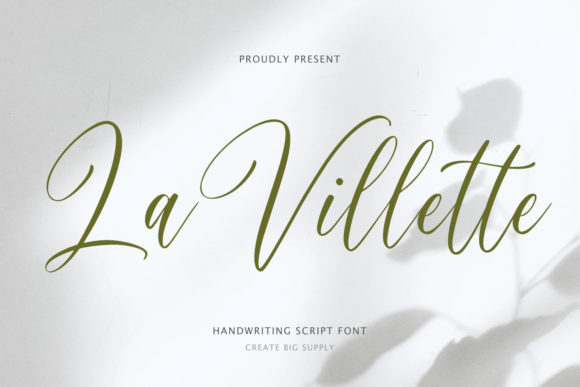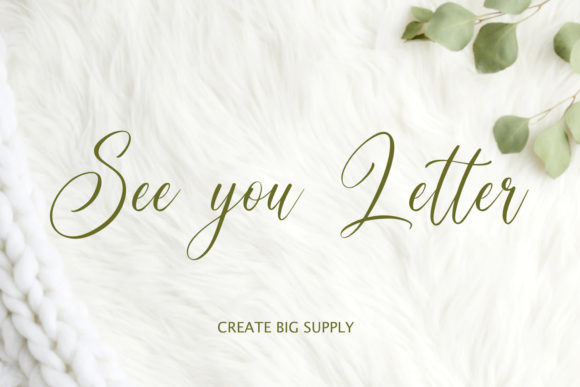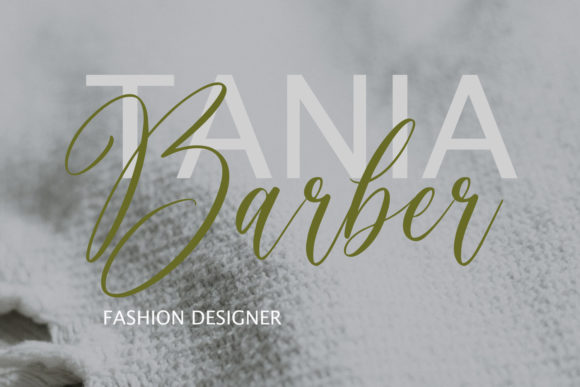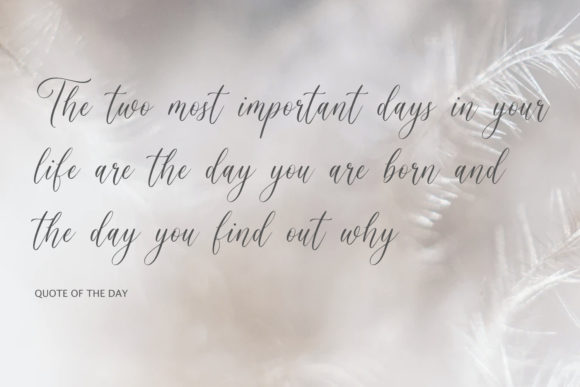
About La Villette Script Font
La Villette Script is a beautiful and refined script font. It has a classy, elegant and modern look that can be used for logos, branding, invitations, stationery, wedding designs, social media posts, and much more!